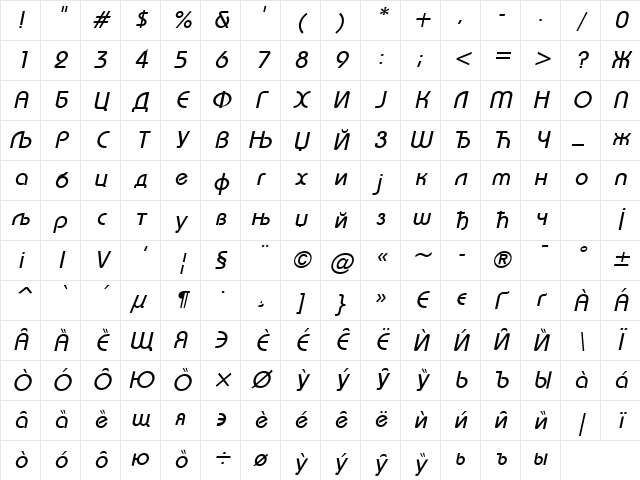
Cir Bahamas Italic
Cir Bahamas Family
Cir Bahamas Italic
Complete Cir Bahamas Italic glyph index. Displaying only characters natively supported by Cir Bahamas Italic font.
Design Context for Cir Bahamas
Cir Bahamas is a composed and adaptable typeface that performs quietly and consistently across a wide range of design contexts. The slanted form adds forward momentum and visual energy.
Pro Tip: Use Cir Bahamas for emphasis, pull quotes, and subheadings where its slanted energy can add rhythm to the layout.